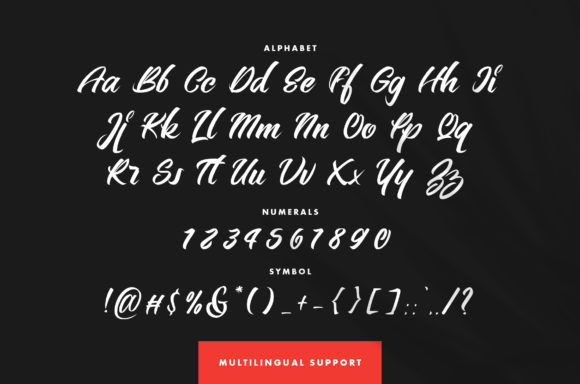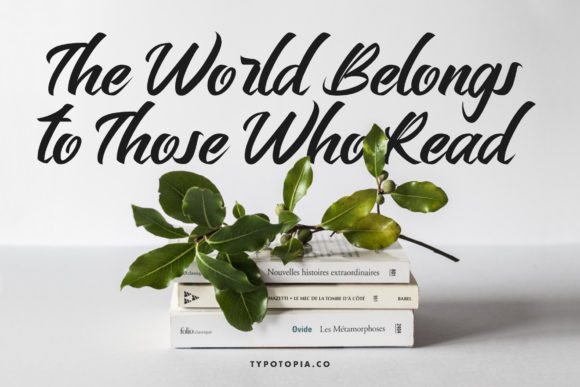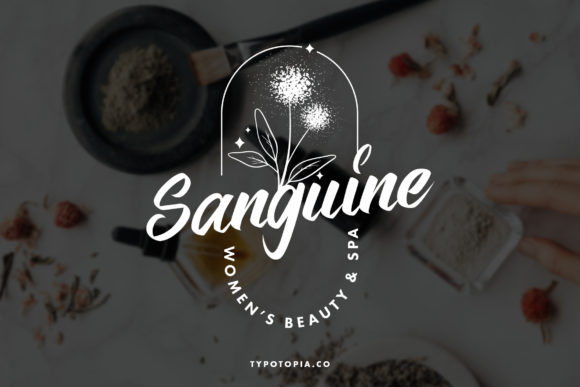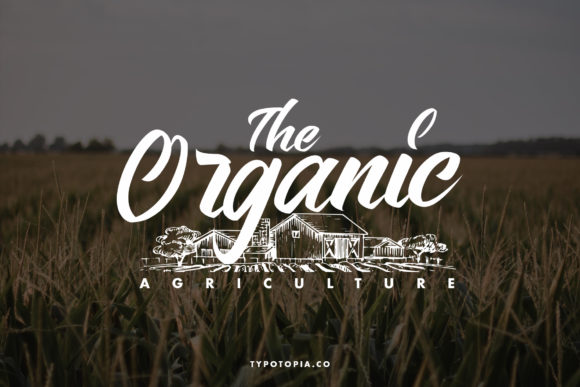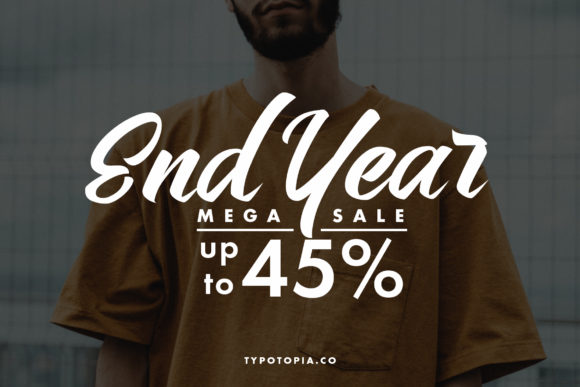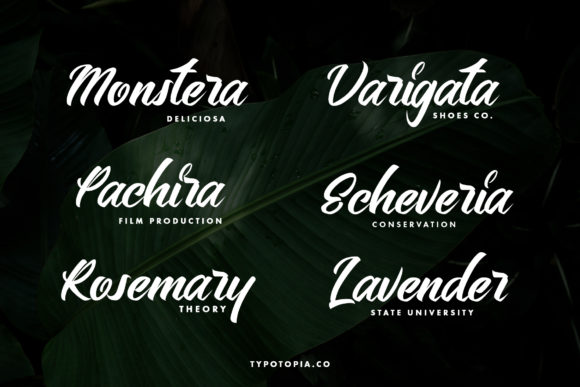
The Perfect Brushstroke: Elevating Your Designs with Bellerin Font
Have you ever sat at your desk, staring blankly at a blank canvas, waiting for the perfect idea to strike? It’s that moment when the world seems to slow down, and your creativity kicks into high gear. For designers, this moment is what drives us to push the boundaries of innovation and beauty. It’s the spark that ignites the flame of inspiration, and it’s exactly what Bellerin Font is designed to capture.
Bellerin Font is a modern script font created with the help of a paint brush, giving it a unique and organic feel. Whether you’re designing a logo, a brochure, or a website, this font has the potential to elevate any creation and make it truly unforgettable. With its versatility and charm, Bellerin Font is an incredibly valuable asset to any designer’s library.
- Unique Characteristics: Elegant, cursive script with a vintage feel and subtle flair, ideal for creative and artistic applications
Bellerin Font Review
At first glance, the Bellerin font seems like a promising addition to any design project. ✨ Its unique blend of modern and classic elements makes it a great choice for those looking to create a stylish and sophisticated look. The font’s clean lines and elegant curves make it perfect for use in branding, packaging, and editorial design.
Some of the font’s strengths include its:
- High legibility, making it easy to read even at small font sizes
- Flexibility in use, suitable for both digital and print applications
- Unique character, setting it apart from more generic font options
- ⚠️ Limited font size range, which can make it difficult to use in situations where a wide range of font sizes is required
- ⚠️ Some users may find the font’s elegance to be overly formal, making it less suitable for more casual designs
Overall, the Bellerin font is a solid choice for designers looking to add a touch of sophistication to their projects. While it may have some limitations, its unique character and high legibility make it a great option for a wide range of applications.
Tips for Getting the Most Out of Bellerin
For best results, use Bellerin in conjunction with bold or italic text for emphasis. You can also use it in combination with other fonts to create a unique look.
The Bellerin font is ideal for use in modern branding, creative typography, and editorial design projects. It’s particularly effective in headings and titles where a touch of elegance is desired.